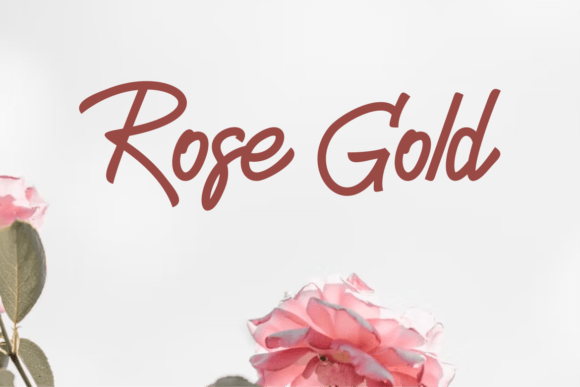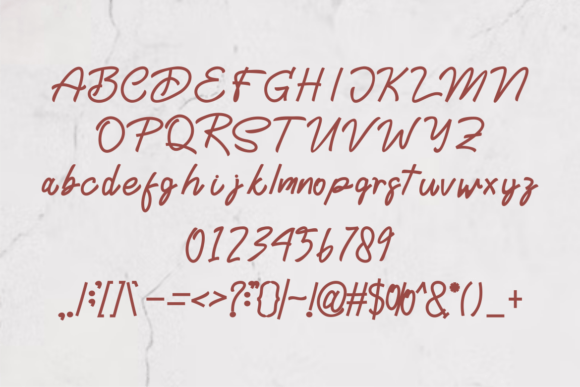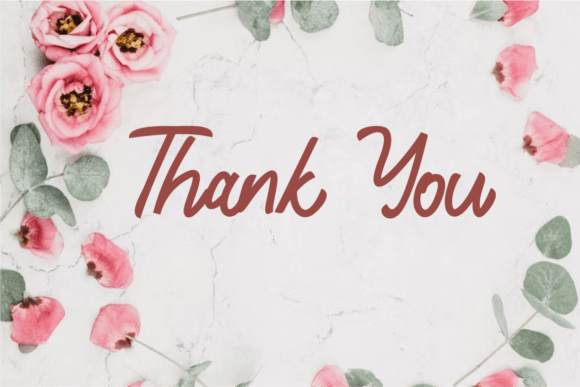
Introduction to Rahtian Queen Font
Rahtian Queen is a classy and elegant handwritten font.
This versatile script font has a wide spectrum of applications ranging from greeting cards to headlines and is guaranteed to add a romantic feel to your next project .